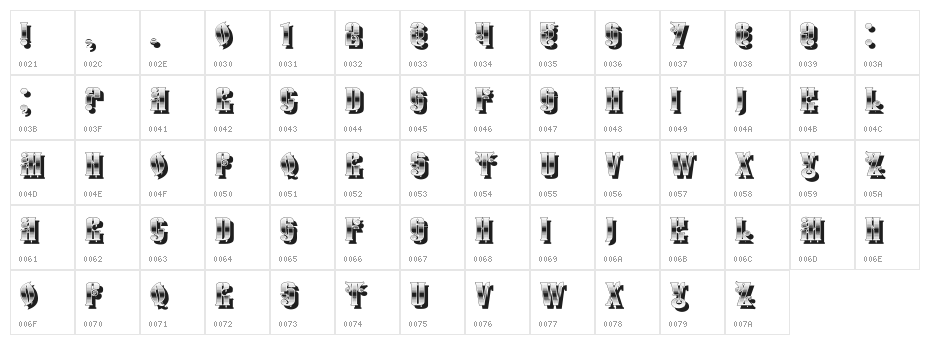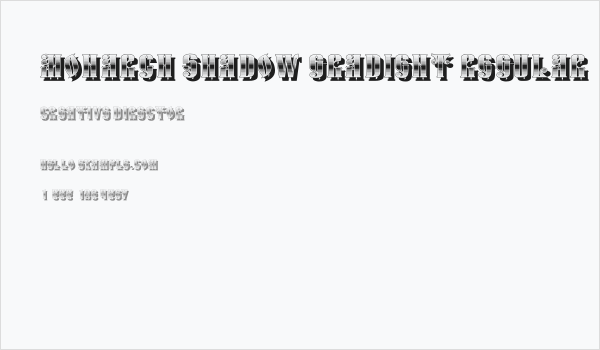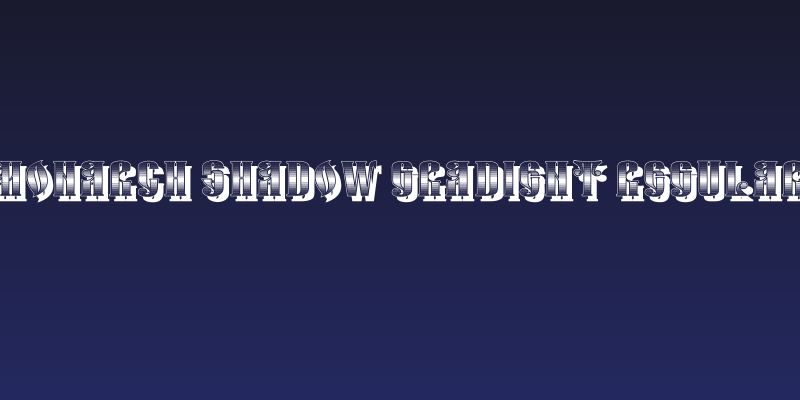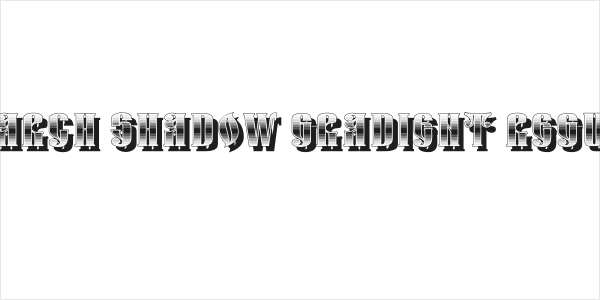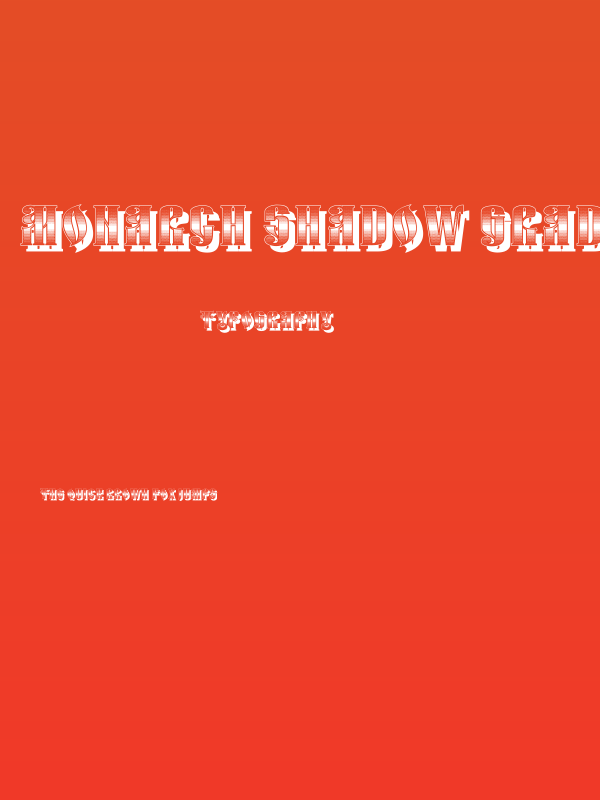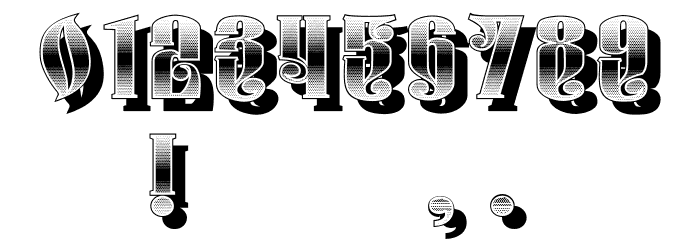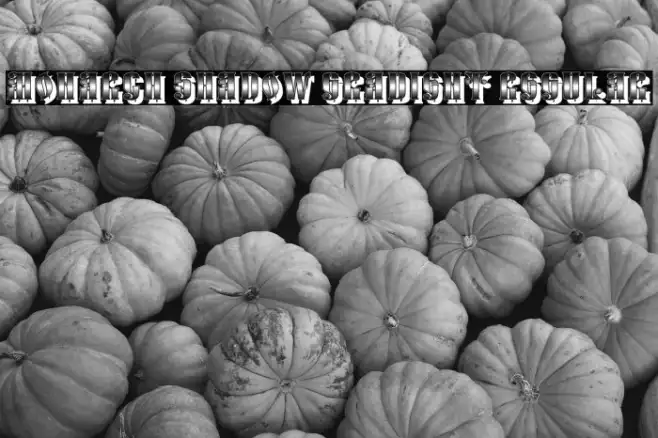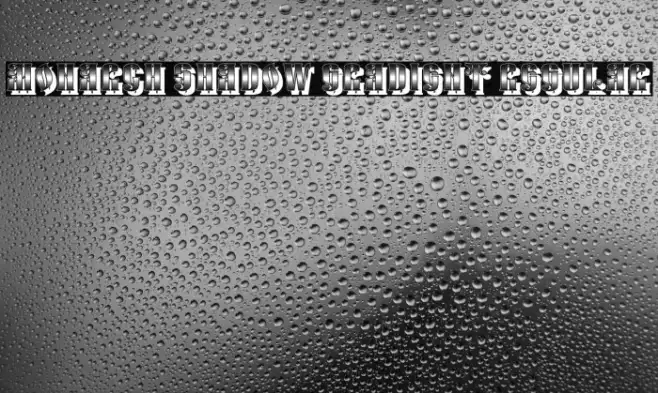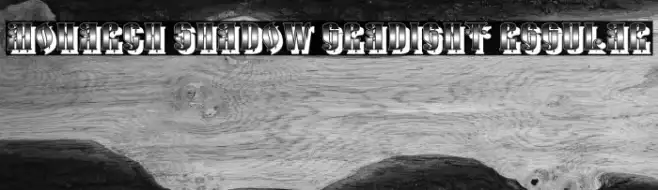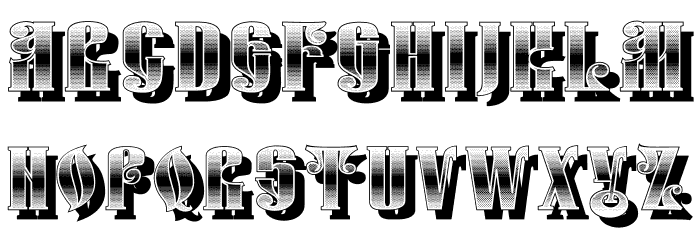
Monarch Shadow Gradient Regular Font
Monarch Shadow Gradient Regular Description
This font features a bold and decorative style with a shadow and gradient effect that gives it a three-dimensional appearance. The characters are intricately designed with ornate details, including flourishes and embellishments that add to its dramatic and eye-catching look. The uppercase and lowercase letters maintain a consistent style, with a strong presence and a sense of grandeur. The numbers and special characters follow the same ornate design, making them suitable for attention-grabbing displays. The font's unique characteristics make it ideal for projects that require a touch of elegance and sophistication.
| Proposed Projects | Ideal for posters, headlines, branding, and any project needing a dramatic and elegant touch. |